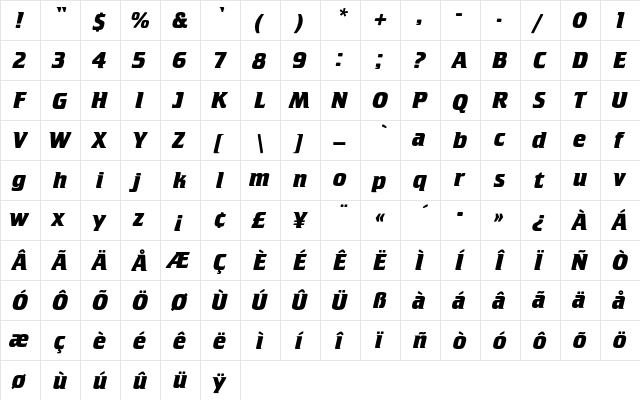
CrilleeEF BoldItalic
Design Context for CrilleeEF Typeface
CrilleeEF is a composed and adaptable typeface that performs quietly and consistently across a wide range of design contexts. The dynamic lean of this cut emphasises speed and emphasis in any layout. Its bold stroke weight gives it real presence on the page.
Pro Tip: Use CrilleeEF for emphasis, pull quotes, and subheadings where its slanted energy can add rhythm to the layout.